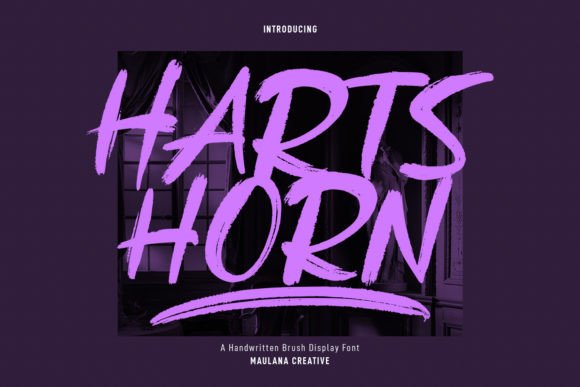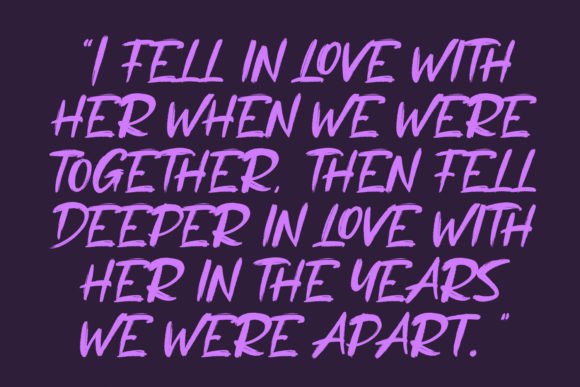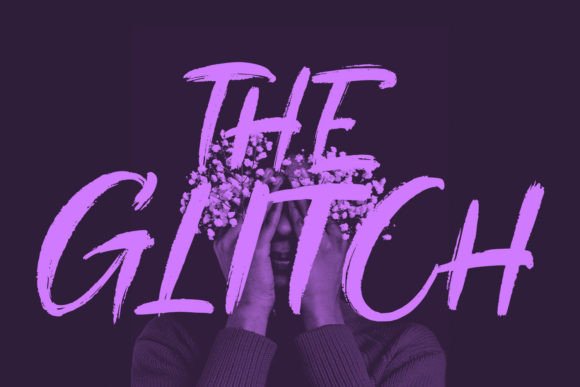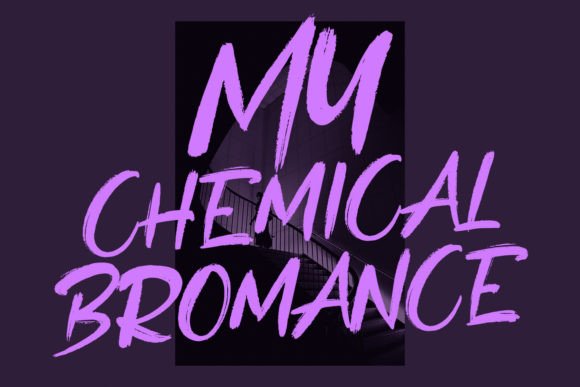
Hartshorn Font
About Hartshorn Font
Hartshorn is a cool, raw brush handwritten font. Trendy and stylish, this font will elevate each of your creations.